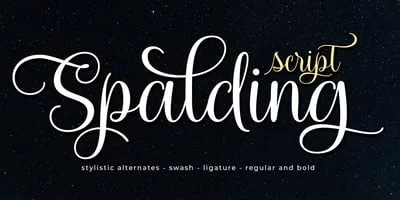
Spalding Script
Spalding Script Font
This athletic typeface is perfect for sports teams, basketball leagues, athletic apparel brands, gymnasium signage, sports equipment manufacturers, coaching academies, athletic scholarships, team merchandise, sports broadcasting, competitive tournaments, fitness centers, and performance training programs. The font's dynamic design makes it ideal for projects that celebrate athletic excellence, competitive spirit, and the dedication required to achieve peak performance in sports and physical training endeavors.
Spalding Script Font is exciting because it embodies athletic prowess and competitive determination through its flowing letterforms and sports-inspired character structure. The font's energetic curves and dynamic proportions create an atmosphere of movement, achievement, and team spirit, making it perfect for brands that want to convey excellence, teamwork, and the relentless pursuit of athletic victory. Its competitive personality ensures instant recognition while maintaining excellent readability across various sports applications.
The Spalding Script Font family includes multiple athletic variations: Light Warm-up, Regular Game, Medium Championship, Bold Victory, and Black Champions weights, each available in standard and italic versions. Special sports editions feature team alternates, athletic symbols, and championship ornaments that enhance the font's competitive appeal, providing designers with comprehensive tools for creating authentic sports-focused communications.
Score design victories with Spalding Script Font – a typeface that represents athletic excellence and competitive achievement. Whether you're developing sports team branding, athletic marketing campaigns, or championship event materials, this font delivers the dynamic energy and winning spirit your projects need while ensuring exceptional performance and championship impact across all sports and athletic applications.